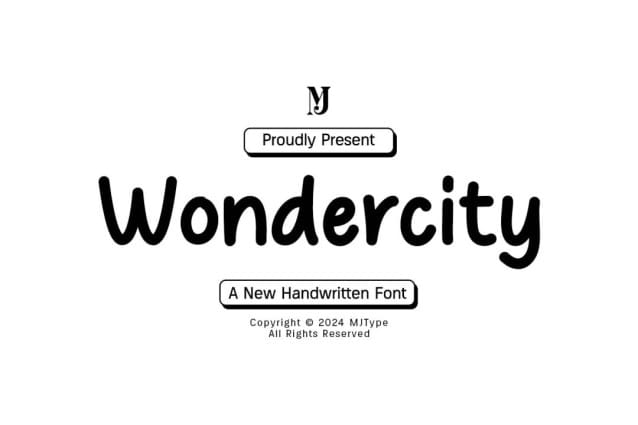
Wondercity Hand Font
Wondercity Hand Font is a simple, neat, and adaptable handwritten font. No matter the topic, this font will be an incredible asset to your fonts’ library, as it has the potential to elevate any creation.